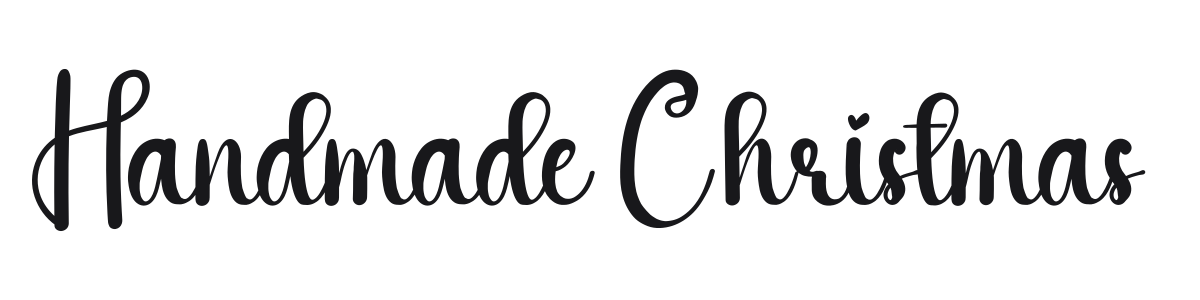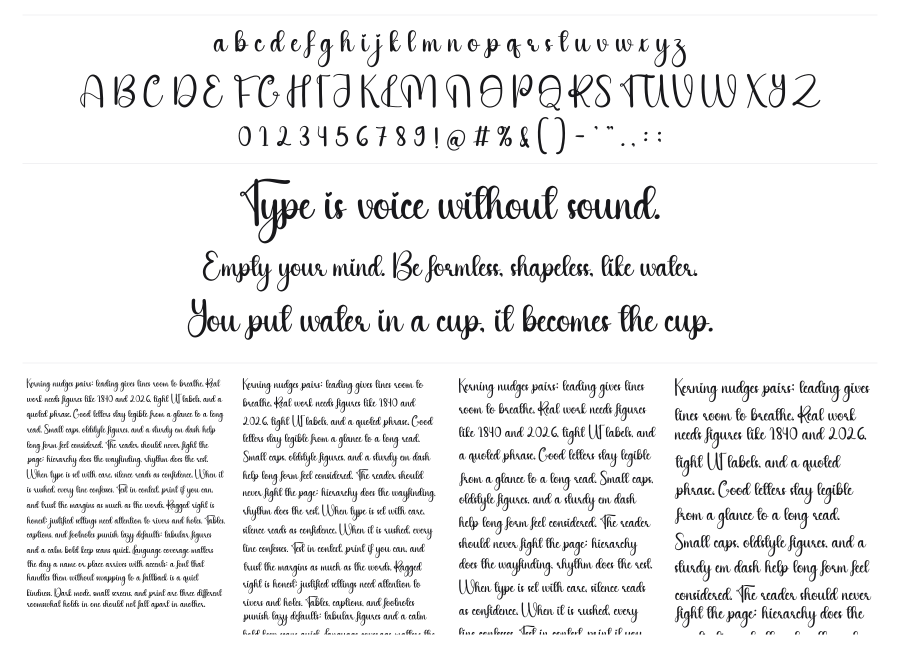
Handmade Christmas
Handmade Christmas is a bold casual script with flowing loops, bouncy baseline, and warm handcrafted energy. The generous weight and sweeping connecting strokes make it read clearly at large sizes while still feeling personal and festive. It suits holiday packaging, social graphics, and any project that needs a handwritten touch without sacrificing legibility.